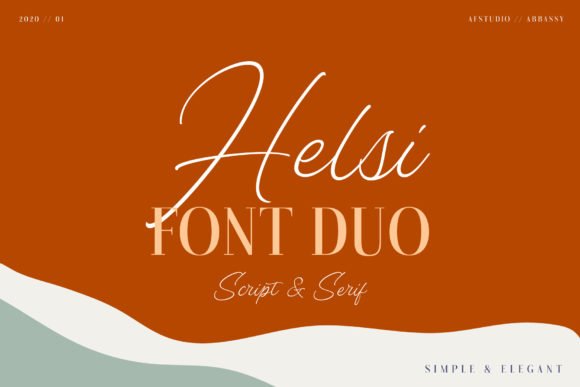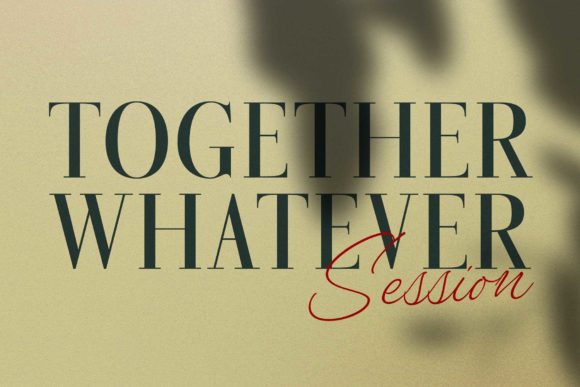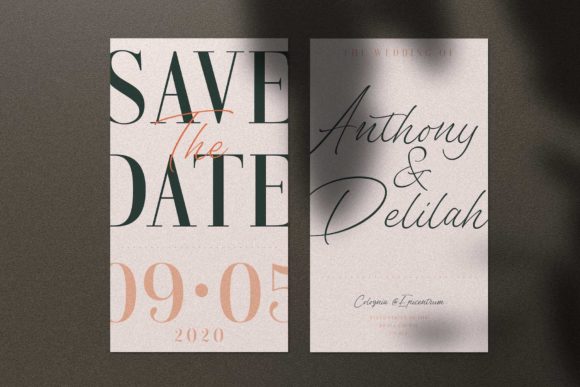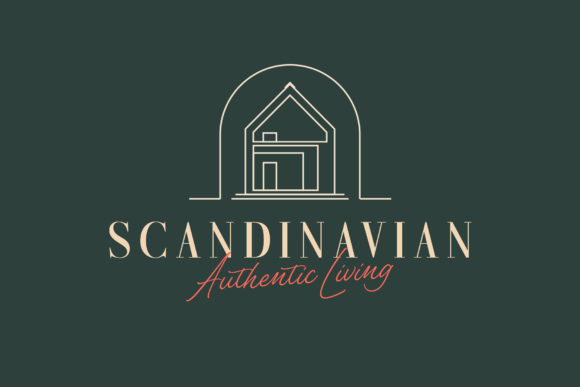
When Words Become Art
As a designer, have you ever stared at a blank page, struggling to find the perfect combination of fonts to convey the essence of your message? The pressure to create something beautiful and meaningful can be overwhelming, but what if you stumbled upon the perfect pairing that would elevate your design to new heights?
Meet Helsi Font, a stunning script and serif duo that will transport your audience to a world of elegance and romance. This harmonious union is the perfect solution for designers seeking to add a touch of sophistication to their next project. With Helsi Font, you’ll be able to create visually stunning designs that speak directly to the heart.
Helsi Font Key Features
- Unique Characteristics: Helsi Font features a unique blend of modern and elegant design elements, including flowing lines, rounded edges, and subtle texture, making it suitable for a wide range of applications, from body text to headings.
- Stylistic Sets: Helsi Font offers a range of stylistic sets, allowing designers to customize the font’s appearance and create unique, bespoke typography for their projects.
- Font Weight and Width: The font family includes multiple weights (from Light to Bold) and widths (Condensed to Extended), providing designers with the flexibility to create visually appealing typography for various design applications.
Helsi Font Review
I recently had the chance to work with the Helsi Font, and I must say, it’s a delightful addition to any design project. ✨ One of the things that stands out about Helsi is its sleek and modern aesthetic, making it perfect for contemporary designs. The font’s clean lines and subtle curves give it a professional touch that’s sure to elevate any visual content.
Another advantage of the Helsi Font is its versatility. ✨ It’s suitable for a wide range of applications, from body text to headlines, and can be used in various contexts, including digital and print media. The font’s scalability also means it looks great in different sizes, from tiny to massive.
However, there are some limitations to consider. ⚠️ One of the main issues is the font’s limited language support. If you need to typeset text in multiple languages, you may find that Helsi falls short. Additionally, the font’s character set is relatively small, which can be a problem if you need to use special characters or symbols.
- Modern and sleek aesthetic
- Professional and clean design
- Versatile and suitable for various applications
- Scalable and looks great in different sizes
- Limited language support
- Small character set
Overall, the Helsi Font is a solid choice for designers looking for a modern and professional font. While it may have some limitations, its advantages make it a great addition to any design project.
Tips for Getting the Most Out of Helsi Font
Use Helsi Font for elegant and sophisticated designs, such as wedding invitations, business cards, or luxury branding. Experiment with different font sizes and colors to create a unique look.
Helsi Font is commonly used for:
- Luxury branding and packaging
- Business cards and resumes
- High-end magazines and publications